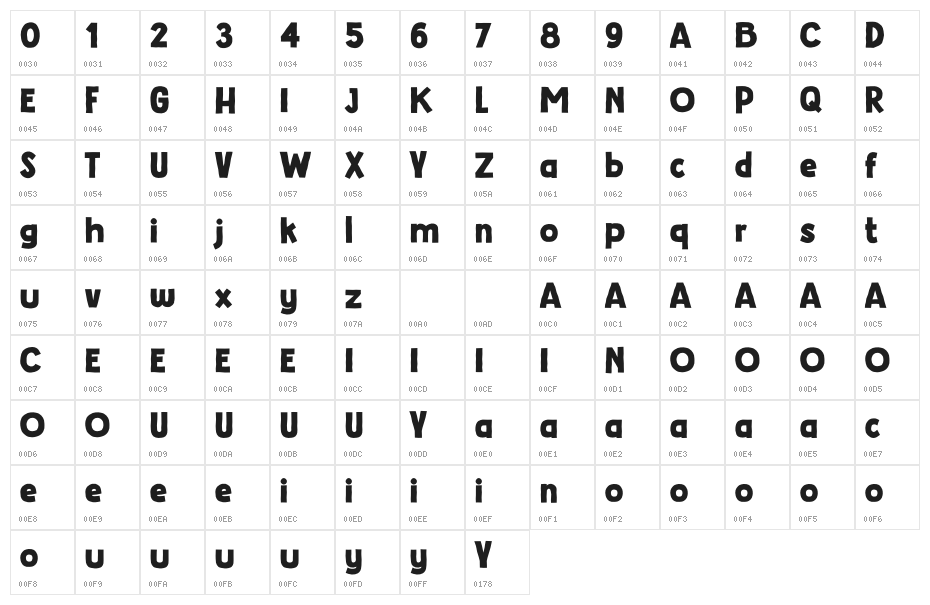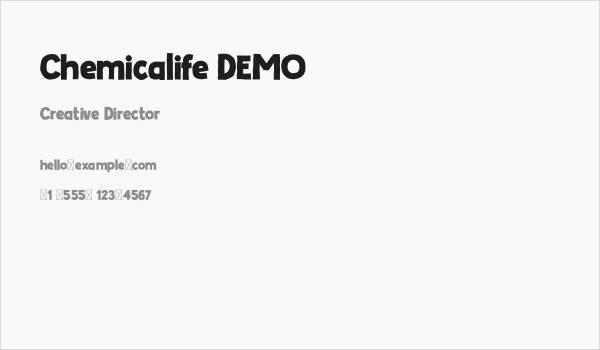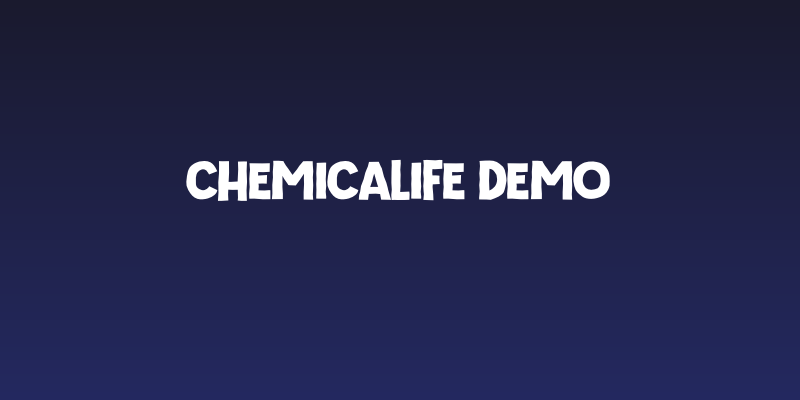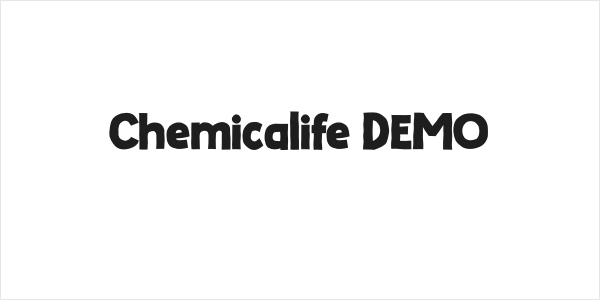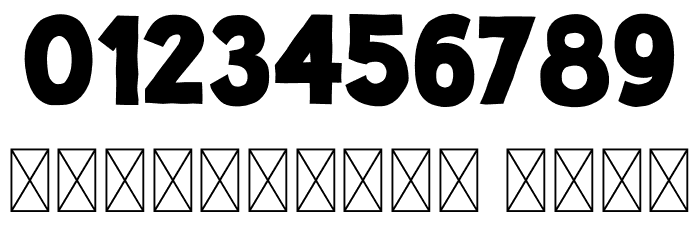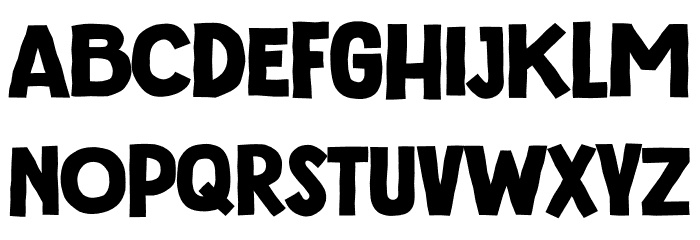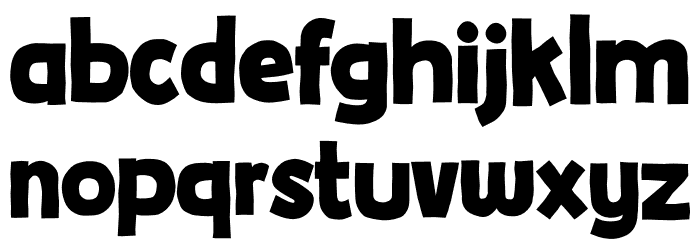
Chemicalife DEMO Font
Chemicalife DEMO Description
A bold, hand-drawn style font with irregular, playful shapes and a casual appearance.
| Overall Style | Playful, Casual |
| Proposed Projects | Children's books, posters, playful branding. |